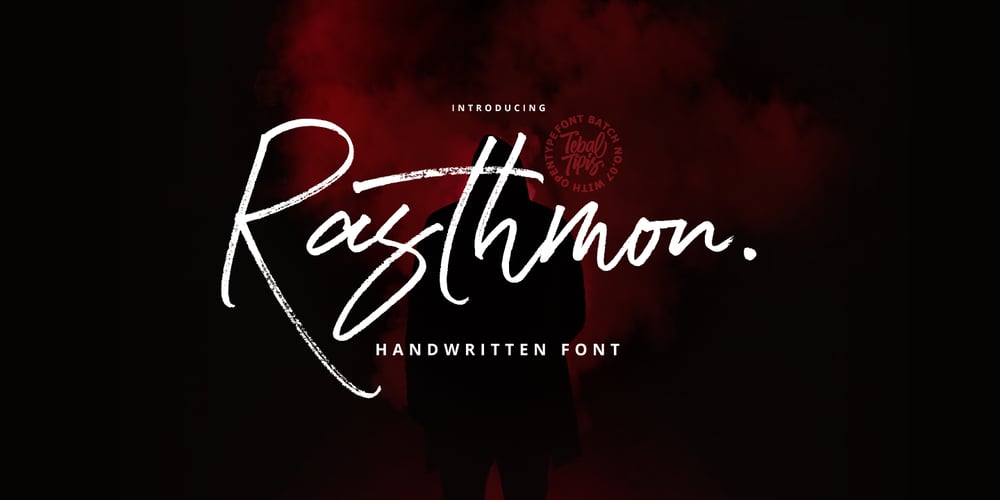
Rasthmon Brush Font Family was designed by Dzulka Elfira and published by Tebaltipis Studio. Rasthmon Brush contains 1 styles and family package options. Rasthmon Brush Typeface , with authentic dry brush imperfections, and a very bouncy baseline It has a perfectly paired complimentary marker font , and a super handy set of bonus Swash. Ideal for logos, handwritten quotes, product packaging, header, poster, merchandise, social media & greeting cards.FeaturesBasic Latin A-Z and a-z Numbers Symbols PUA Encode Multilanguage Support To enable the OpenType Stylistic alternates, you need a program that supports OpenType features such as Adobe Illustrator CS, Adobe Indesign & CorelDraw X6-X7.There are additional ways to access alternates, using Character Map (Windows), Nexus Font (Windows), Font Book (Mac) or a software program such as PopChar (for Windows and Mac).